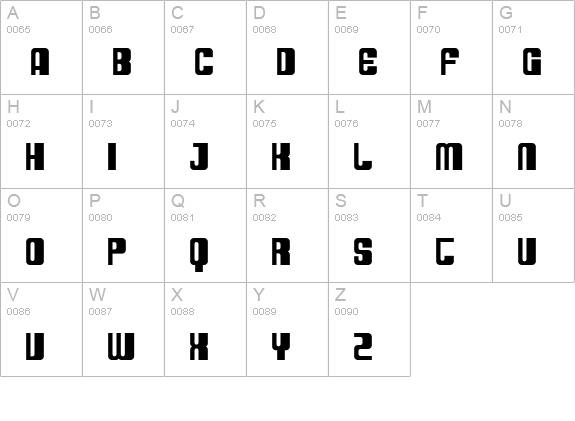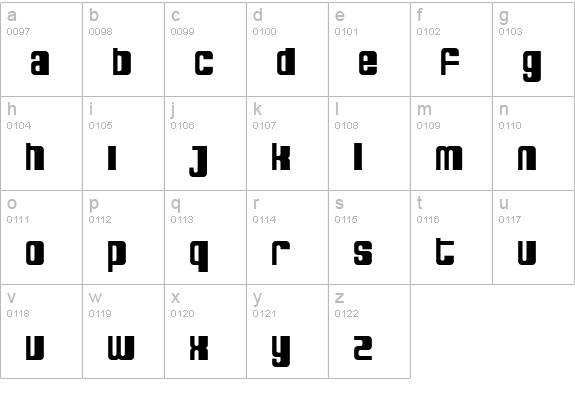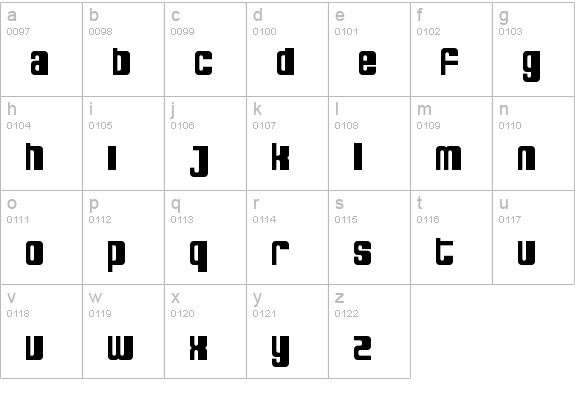
SF DecoTechno Bold Font Details
SF DecoTechno Bold is a strong, high-contrast variant in the SF typeface family \xE2\x80\x94 well suited to headlines, attention-grabbing titles, and strong calls-to-action.
SF DecoTechno Bold is a modern and stylish font that seamlessly combines elements of Art Deco and futuristic aesthetics. Its bold and geometric letterforms exude a sense of strength and confidence, making it perfect for attention-grabbing headlines, posters, and branding projects. This font's unique design features sharp edges and sleek curves, creating a visually striking and contemporary look. Its crisp and clean lines give it a polished and professional appearance, making it versatile enough to be used in a variety of design contexts. SF DecoTechno Bold is not only visually captivating, but also highly legible, ensuring that your message is communicated clearly and effectively. Its wide letter spacing and generous x-height guarantee excellent readability, even at smaller sizes. What sets SF DecoTechno Bold apart is that it is freely available to download at FontsMarket.com. This means that you can add this exceptional font to your design arsenal without any cost, allowing you to elevate your projects without breaking the bank. Whether you're a professional designer or a creative hobbyist, this font offers you the opportunity to create stunning visuals without compromising quality or your budget. So why wait? Download SF DecoTechno Bold today and unleash your creativity with this captivating and versatile font. With its unique blend of Art Deco and futuristic elements, this font is sure to make a bold statement in any design project. Don't miss out on the opportunity to add this free font to your collection. Visit FontsMarket.com now and discover the limitless possibilities that SF DecoTechno Bold can bring to your work.